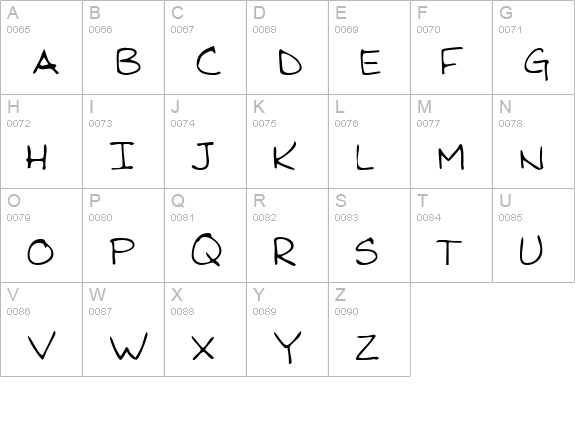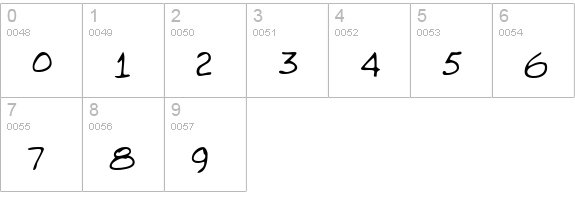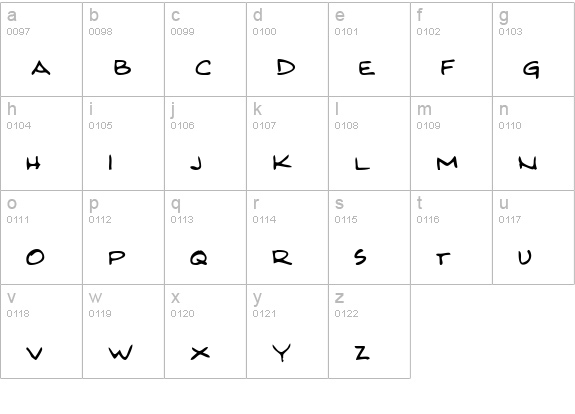
KirbysHand Font Details
KirbysHand font is a playful and whimsical typeface that exudes the charm and joy of handwritten lettering. With its distinctive hand-drawn style, this font adds a touch of personality and warmth to any design project. The fluid strokes and organic curves of KirbysHand font give it a natural and inviting feel, making it perfect for a wide range of creative applications. Whether you're designing a children's book, crafting a charming logo, or creating vibrant posters, this font will bring your ideas to life with its unique and delightful character. One of the best things about KirbysHand font is that it is free! Yes, you read that right. This amazing font is freely available to download at FontsMarket.com. Now you can enjoy the beauty and versatility of KirbysHand font without breaking the bank. Downloading KirbysHand font from FontsMarket.com is quick and hassle-free. With just a few clicks, you can have this fantastic font in your design toolkit, ready to elevate your projects to new heights. Say goodbye to boring and generic fonts and embrace the creativity and fun that KirbysHand font brings. So why wait? Download KirbysHand font today and let your imagination soar. Whether you're a professional designer or a creative enthusiast, this font will be your go-to choice when you want to add a touch of whimsy and playfulness to your designs. Don't miss out on this incredible opportunity to enhance your creativity with KirbysHand font, available for free at FontsMarket.com.